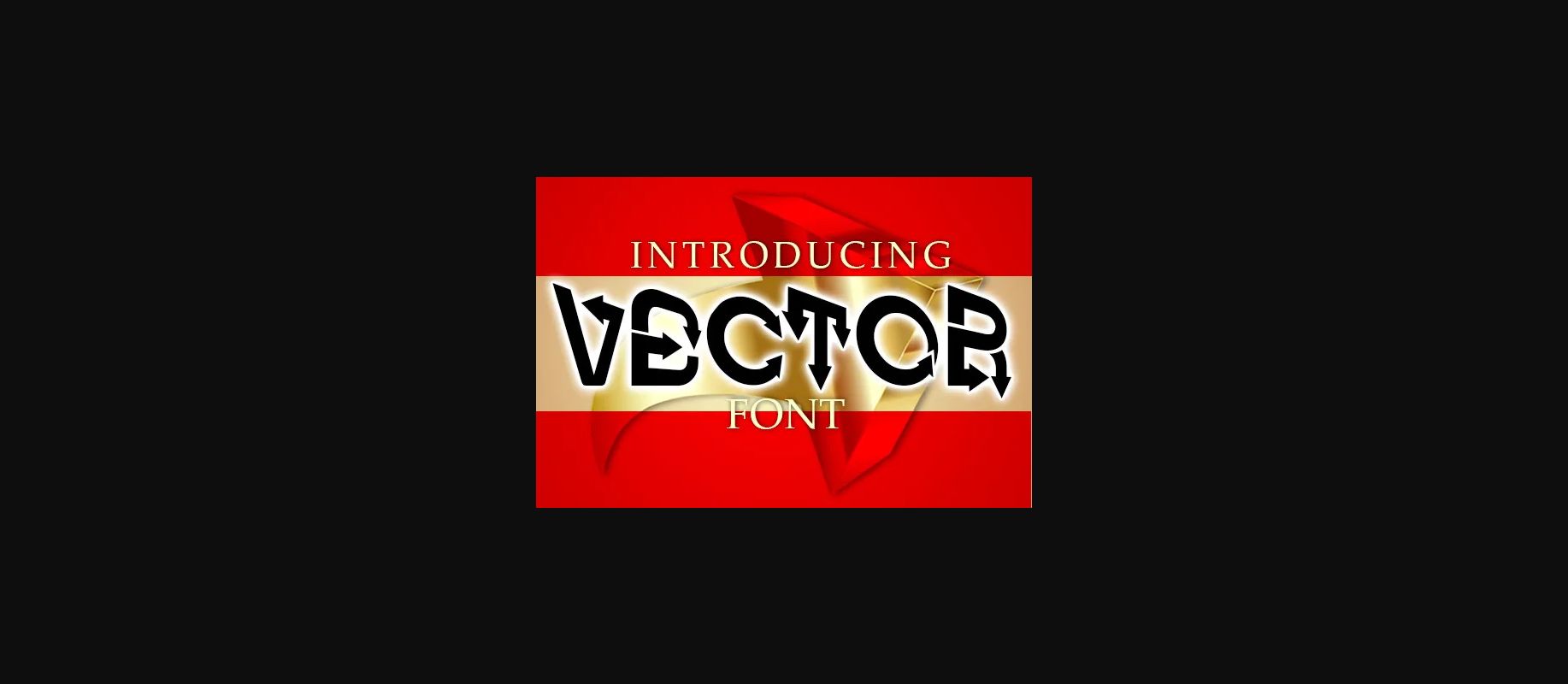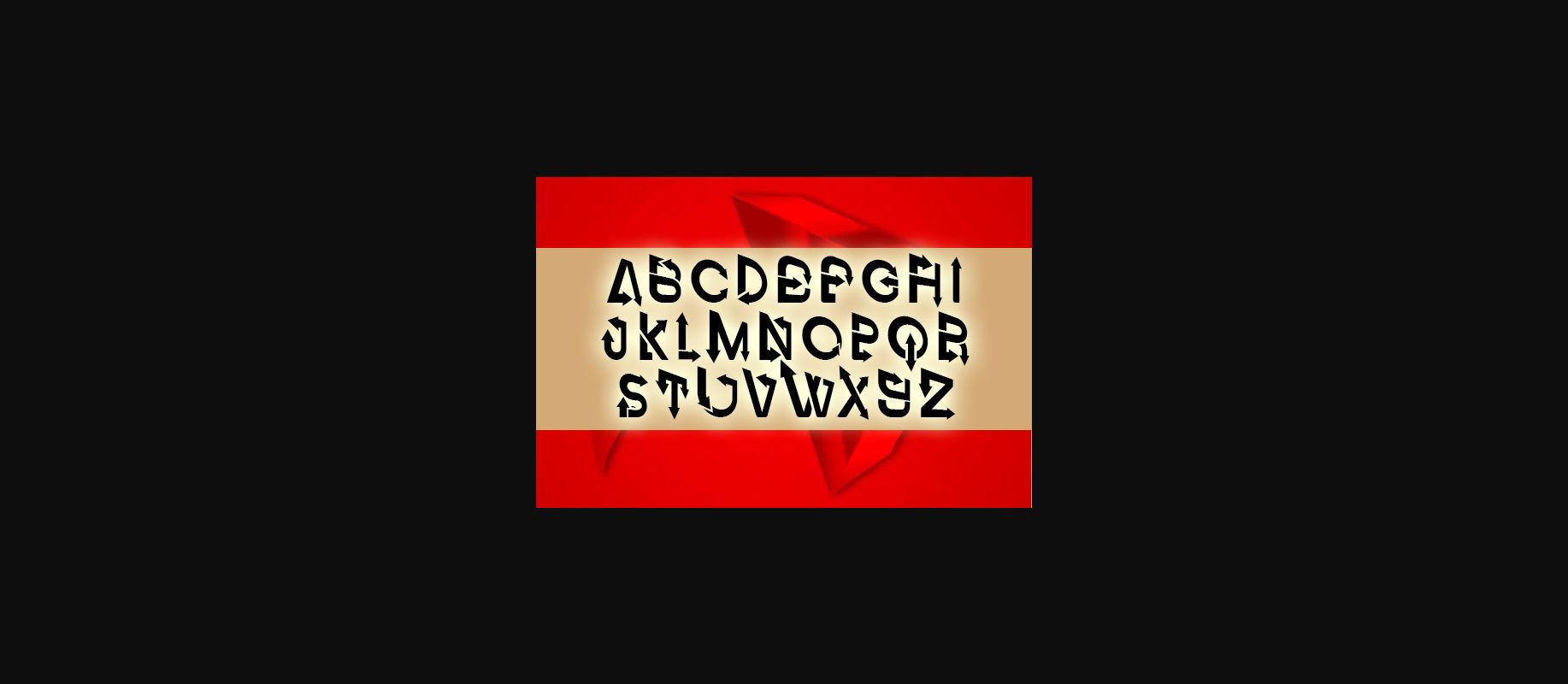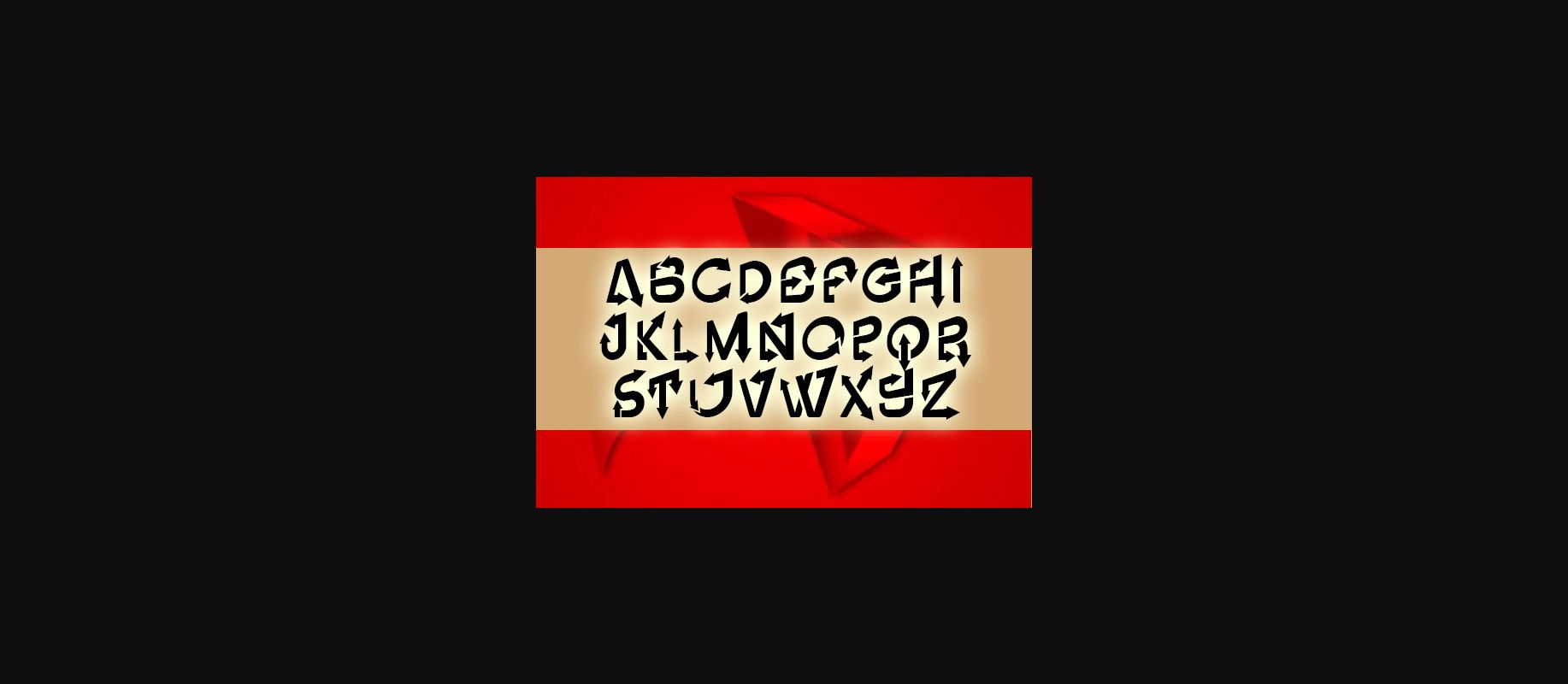
HomeDecorative FontsVector Font Decorative Fonts Vector Font FacebookXPinterestWhatsApp 1 of 5 ... Vector Font Poster 2... Vector Font Poster 3... Vector Font Poster 4... Vector Font Poster 5... About Vector Font Vector is an incredibly cool and unique decorative font. This modern and bold vibe can easily apply to your favorite designs. DOWNLOAD NOW People also explored America’s Best Hero Font Army Font Realteam Font Minimalist Farmhouse Font The Fishing Font Cell Font Thuckies Font Omnipop Farmhouse Font 325 0 TagsVectorVector Font Previous articleCatty Mouse FontNext articleChinese Market Font LEAVE A REPLY Cancel reply Comment: Please enter your comment! Name:* Please enter your name here Email:* You have entered an incorrect email address! Please enter your email address here Website: Save my name, email, and website in this browser for the next time I comment. Personal Use Free Axaxax Bold Personal Use Free Read more about this font Karmatic Arcade Personal Use Free Read more about this font Whoa Personal Use Free Read more about this font Doriss Girls Family Personal Use Free Read more about this font BLOG Modern Sans-Serif Fonts That Brands Love in 2025 In 2025, modern sans-serif fonts remain a top choice for brands looking to project clarity, professionalism, and... Top 7 Google Fonts Alternatives for Faster and Privacy-Friendly Web Design (2025) The 10 Best Handwriting Fonts to Add Personality to Your Designs Best Fonts for T-Shirt Design – Top 2025 Picks